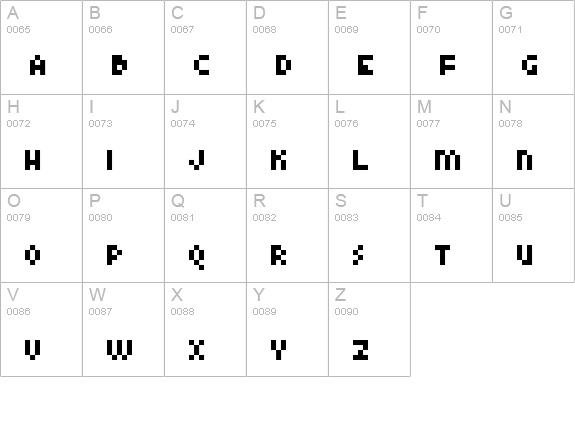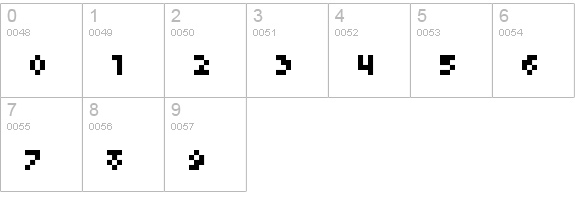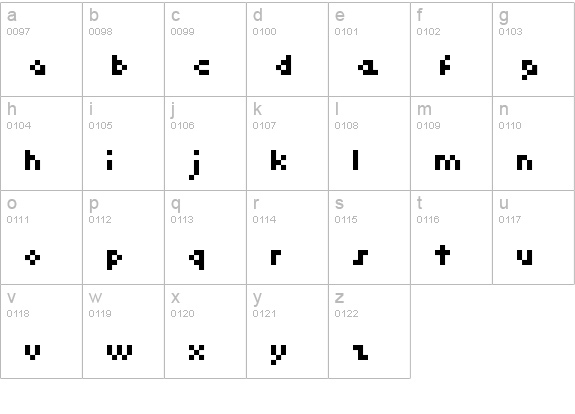
Kroeger 04_55 font is a modern and stylish typeface that exudes sophistication and elegance. With its clean lines and sleek design, this font is perfect for a wide range of design projects, from branding to editorial design. Whether you're creating a logo, a poster, or a website, Kroeger 04_55 font will make your text stand out and grab attention. What's even better is that Kroeger 04_55 font is completely free to download at FontsMarket.com. You can easily access this versatile font and use it in your projects without any cost. Don't miss out on this amazing opportunity to enhance your designs with the beautiful Kroeger 04_55 font. Download it now and unleash your creativity!